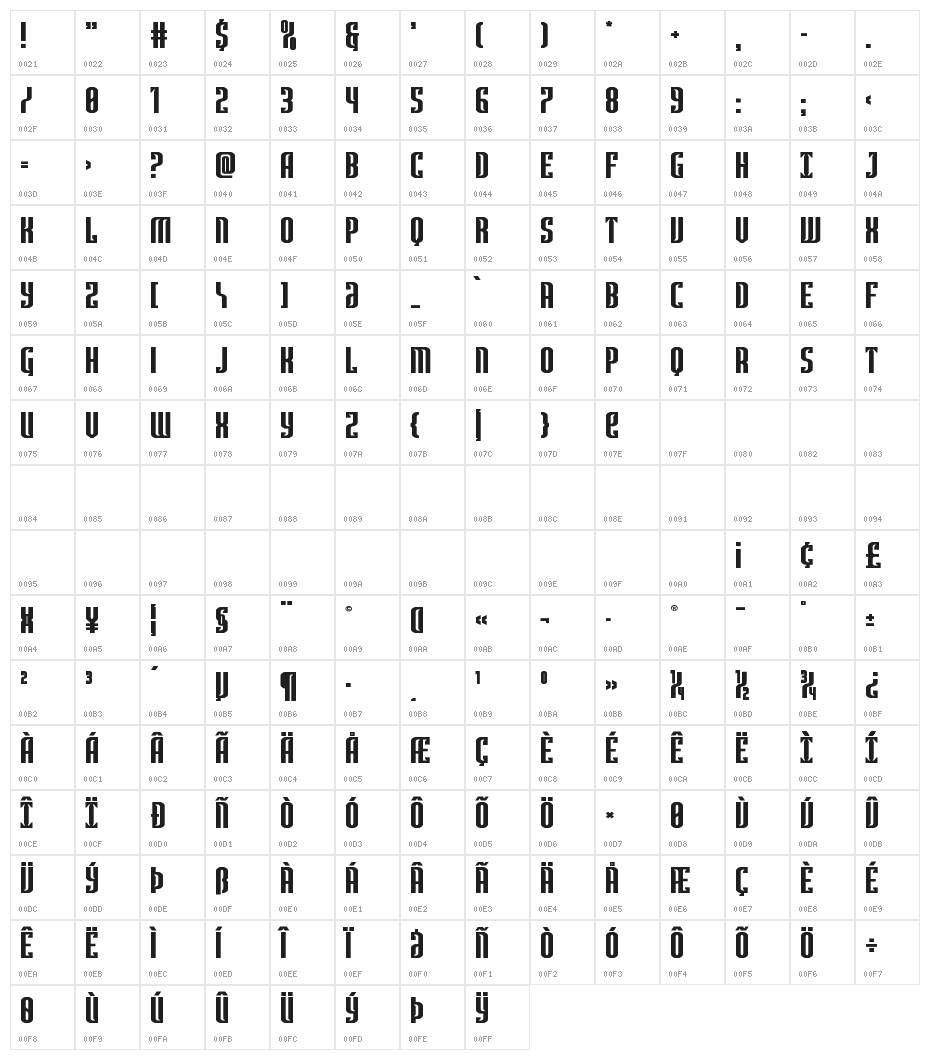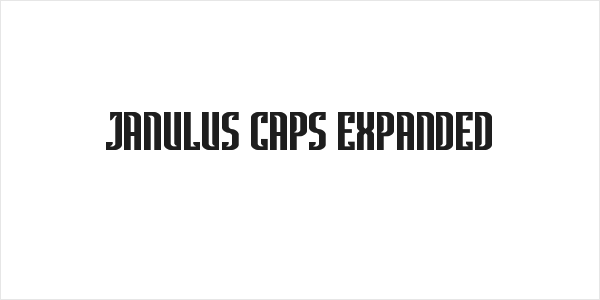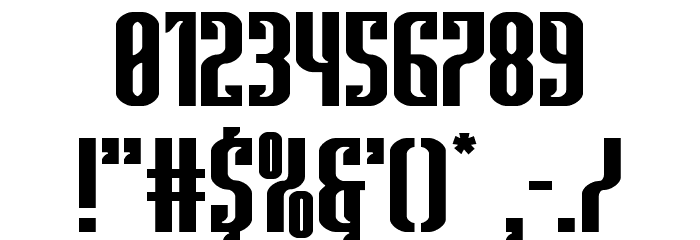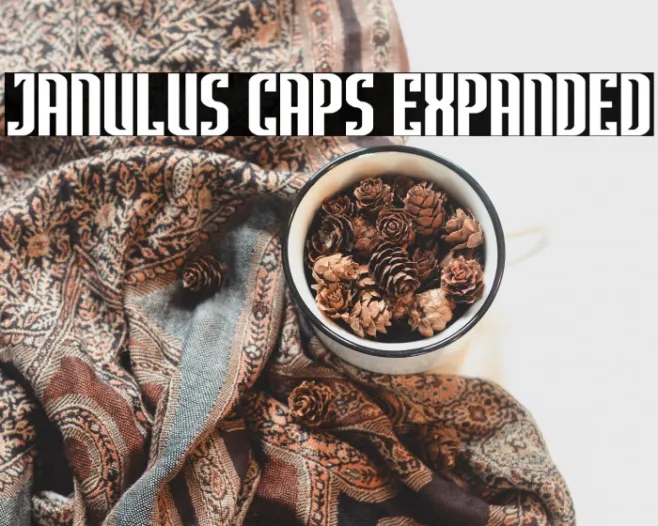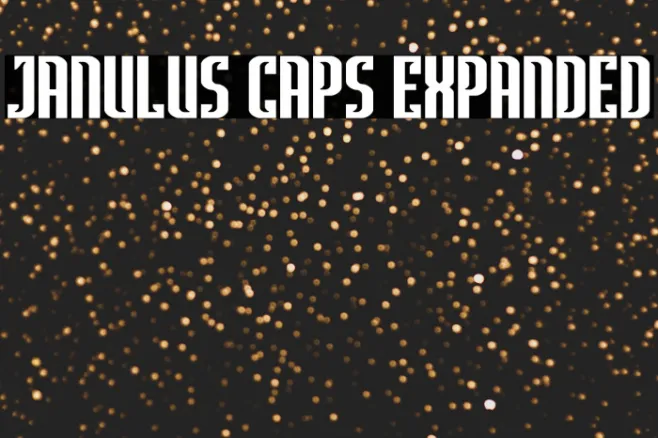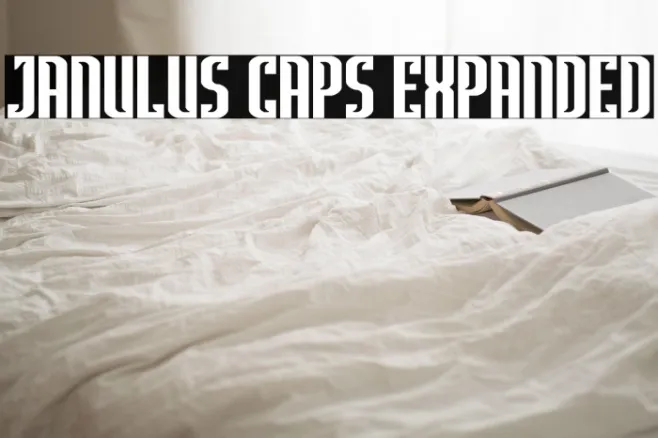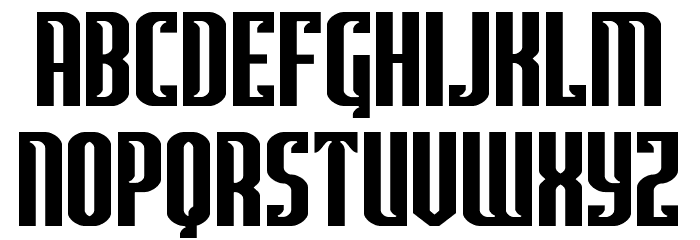
Janulus Caps Expanded Font
Janulus Caps Expanded Description
This font features a bold and striking design with a distinctly modern flair. The characters are tall and narrow, with sharp angles and clean lines that create a sense of strength and authority. The uppercase letters are particularly commanding, with a uniform height that emphasizes their verticality. The numbers and special characters maintain this bold aesthetic, ensuring consistency across all text. The font's expanded width gives it a unique presence, making it ideal for attention-grabbing headlines or impactful logos. Its geometric structure and high contrast between thick and thin strokes add to its visual appeal, making it suitable for a variety of design projects.